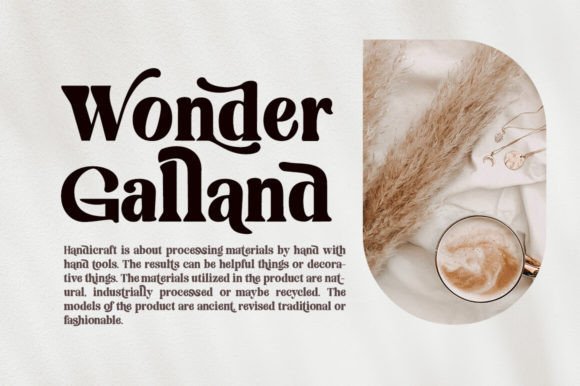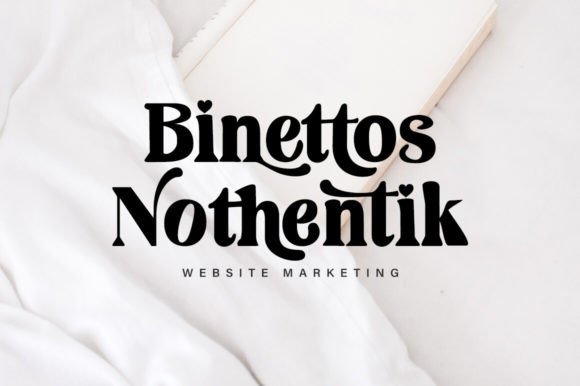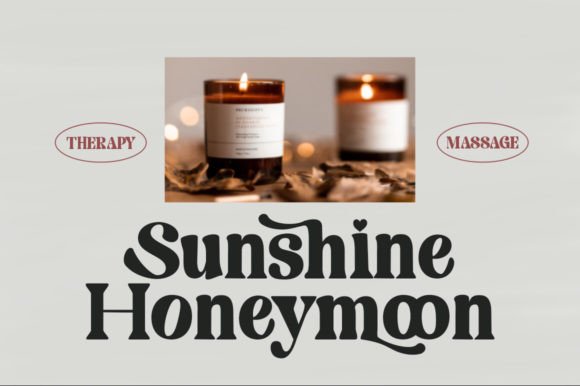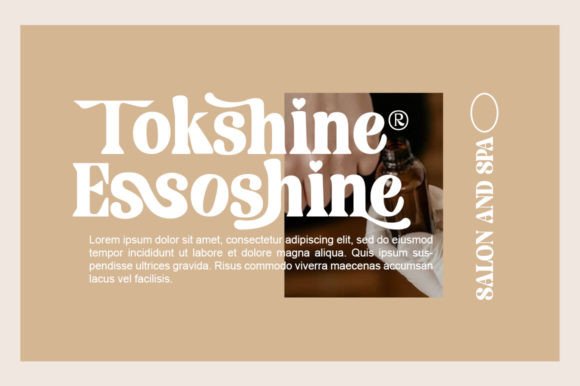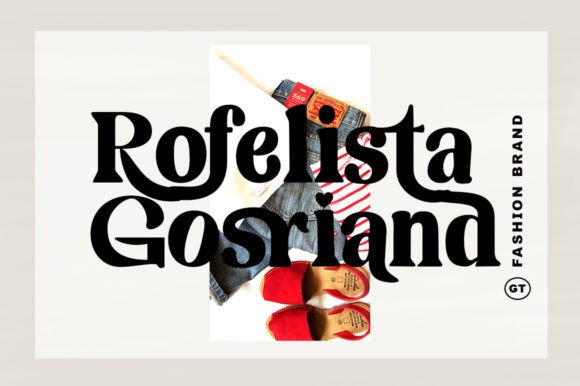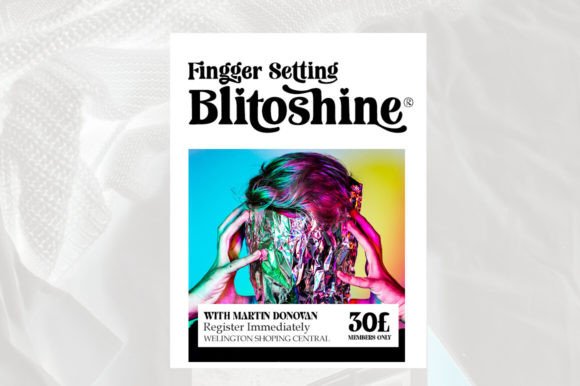
Introduction to Mistoni Font
Mistoni is an elegant serif font.
It is perfect for invitations, logos & branding, photography, advertising, watermarks, social media posts, product packaging, product designs, labels, wedding designs, stationery, special events or anything else needed to create a theme .
Key Features of Mistoni Font
Why Choose Mistoni Font?
Mistoni Font offers exceptional quality and versatility, making it a valuable addition to your design toolkit. Whether you’re creating for personal projects or commercial use, Mistoni Font delivers professional results.